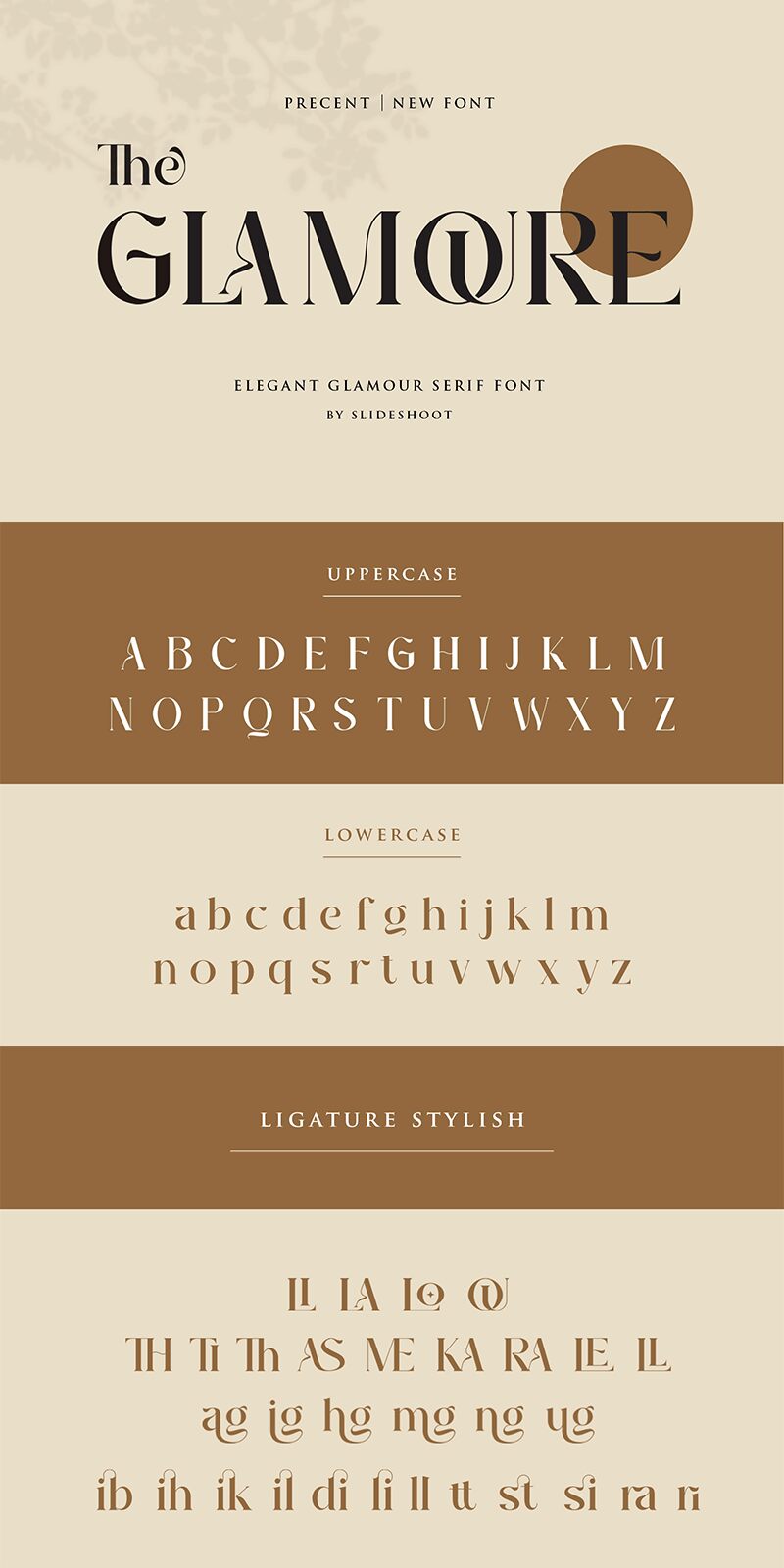
The Glamoure font family from Slide Shoot Type is a serif font with 2 font styles. It’s a free font family full of modern elegance, sophistication, and high-contrast style. A great choice for those searching for that chic and contemporary feel within their design work for artistic flair. With its fashionable and refined appeal, it has everything to become your next go-to typography for professional or personal projects.
For use cases, it will find its place in print media like books, magazines, and newspapers. It also suits advertisements, signage, websites, mobile applications, and general branding and ornamentation projects.